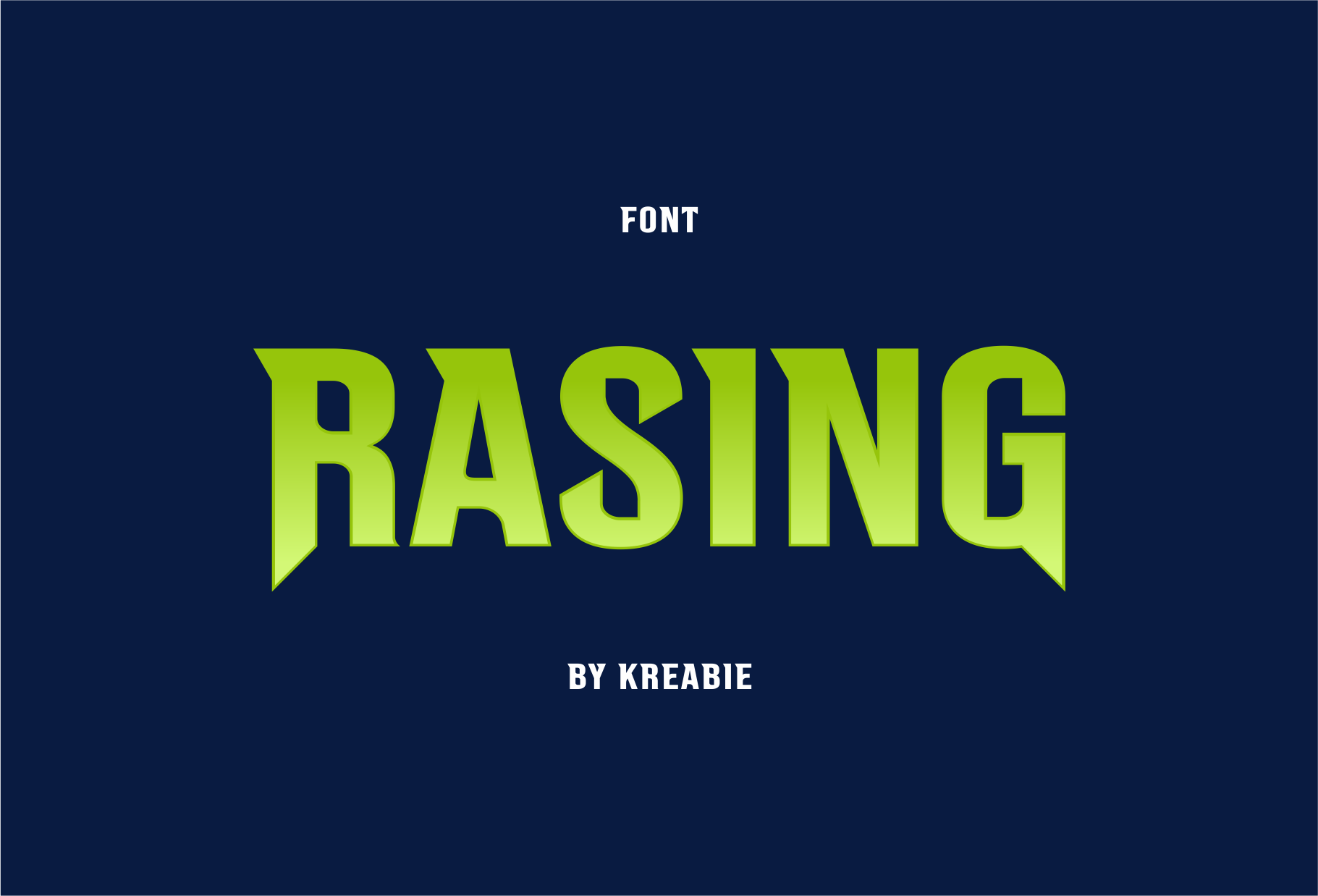
RASING FONT
RASING Font
Rasing font. Rasing Its unique style makes it stand out from other fonts, making it perfect for anyone who wants to make a statement.,The font is suitable to use for many occasion.